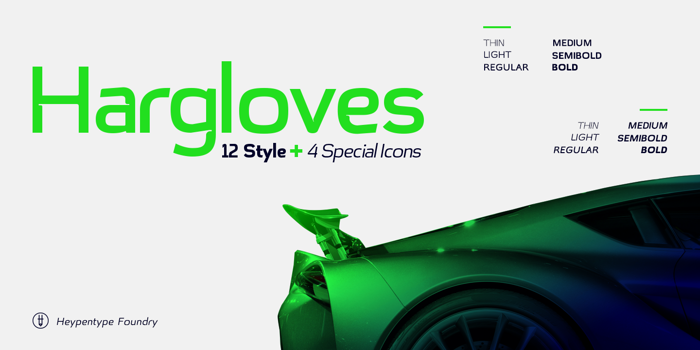
Hargloves Font
Hargloves is a modern sans serif font family. The overall design shapes taken from advance engineering technology themes in various industries like motorsports, biotech, games, architecture, robotics, and aerospace tech.